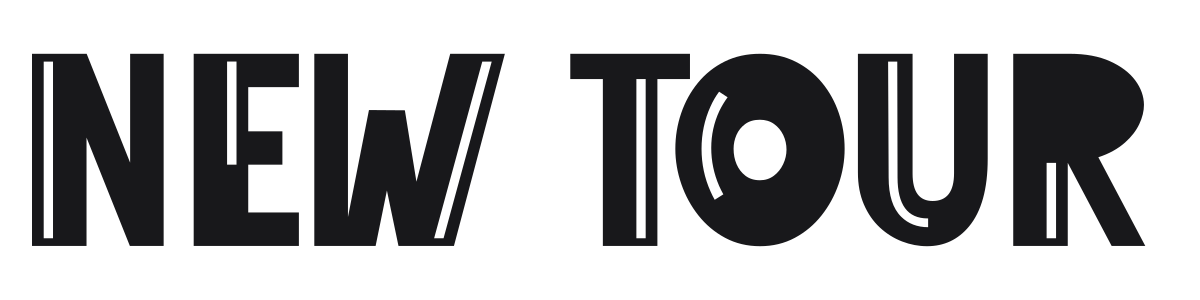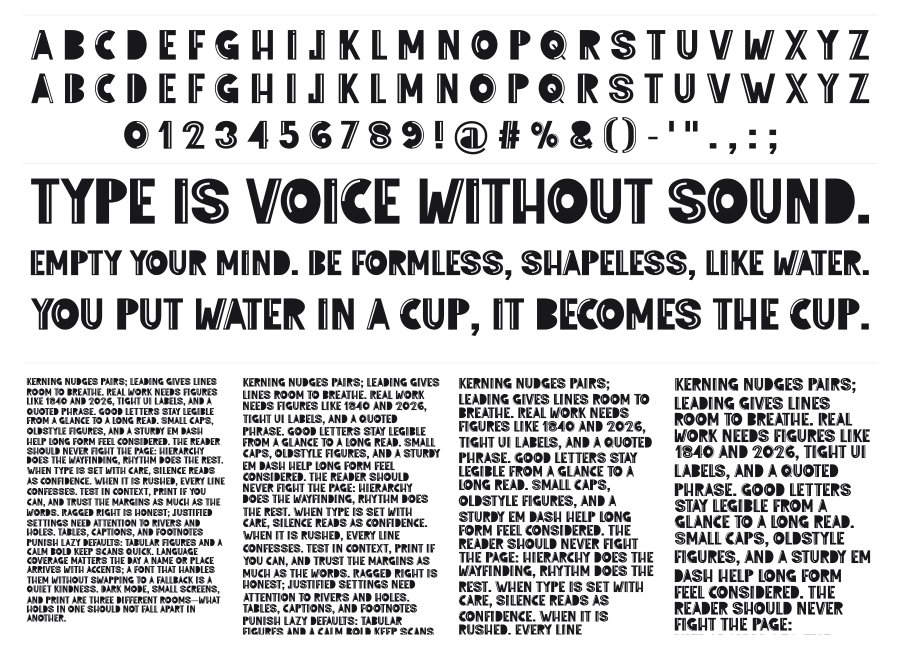
New Tour
New Tour is a bold retro display font with a deliberately eclectic character, mixing inline stripes, circular cutouts, and solid fills across individual letters in the same word. That variety gives it a handcrafted, festival-poster energy rooted in 1960s–70s pop design. It works best large, where the quirky per-character details can be appreciated.